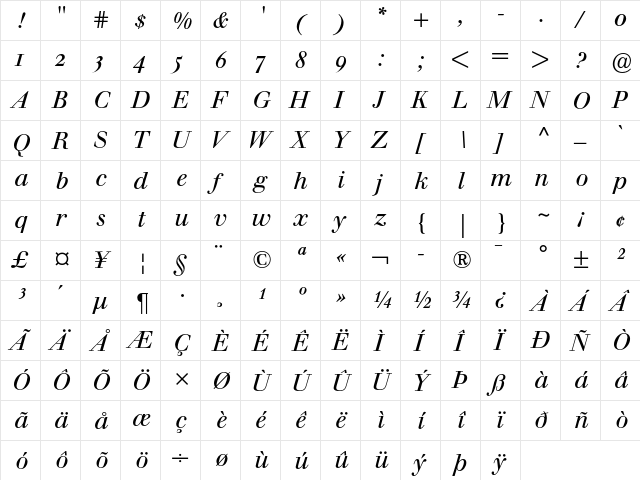
Berthold Walbaum Book Italic OsF
Design Context for Berthold Walbaum Book Typeface
Berthold Walbaum Book is a composed and adaptable typeface that performs quietly and consistently across a wide range of design contexts. Its italic angle brings a sense of urgency and motion to the letterforms.
Pro Tip: Use Berthold Walbaum Book for emphasis, pull quotes, and subheadings where its slanted energy can add rhythm to the layout.